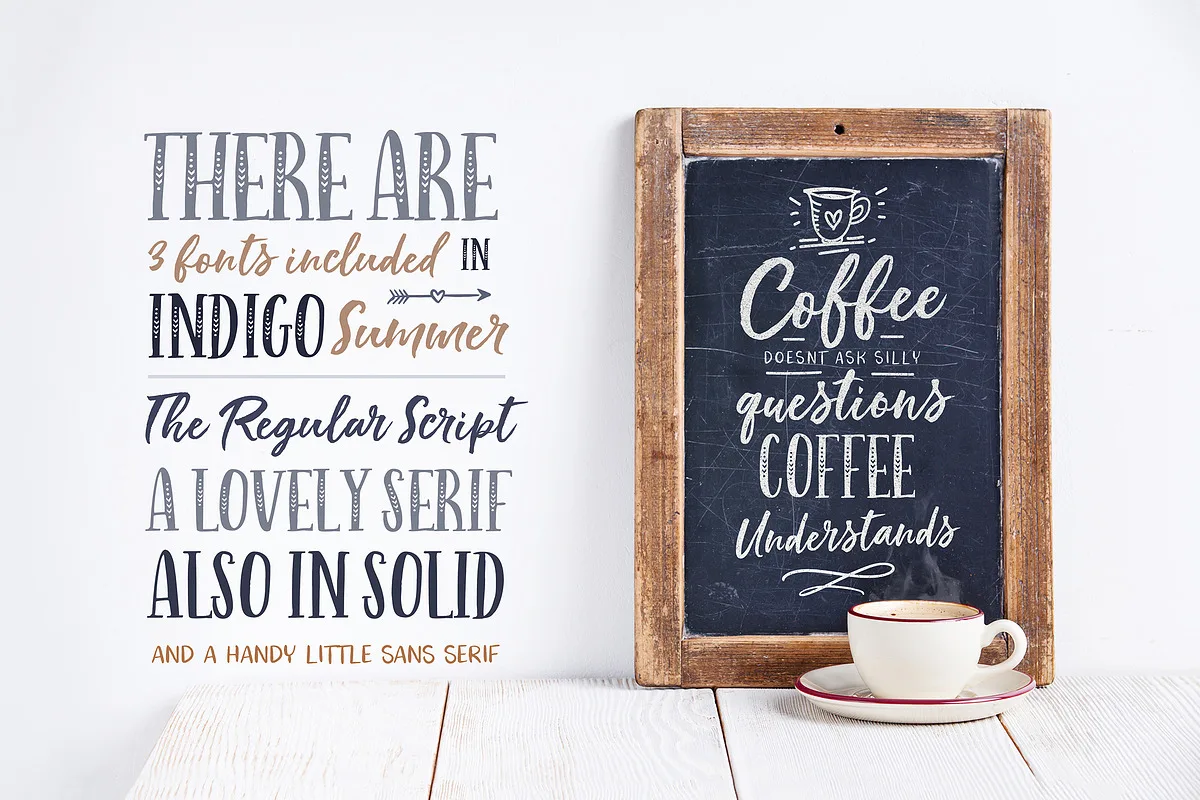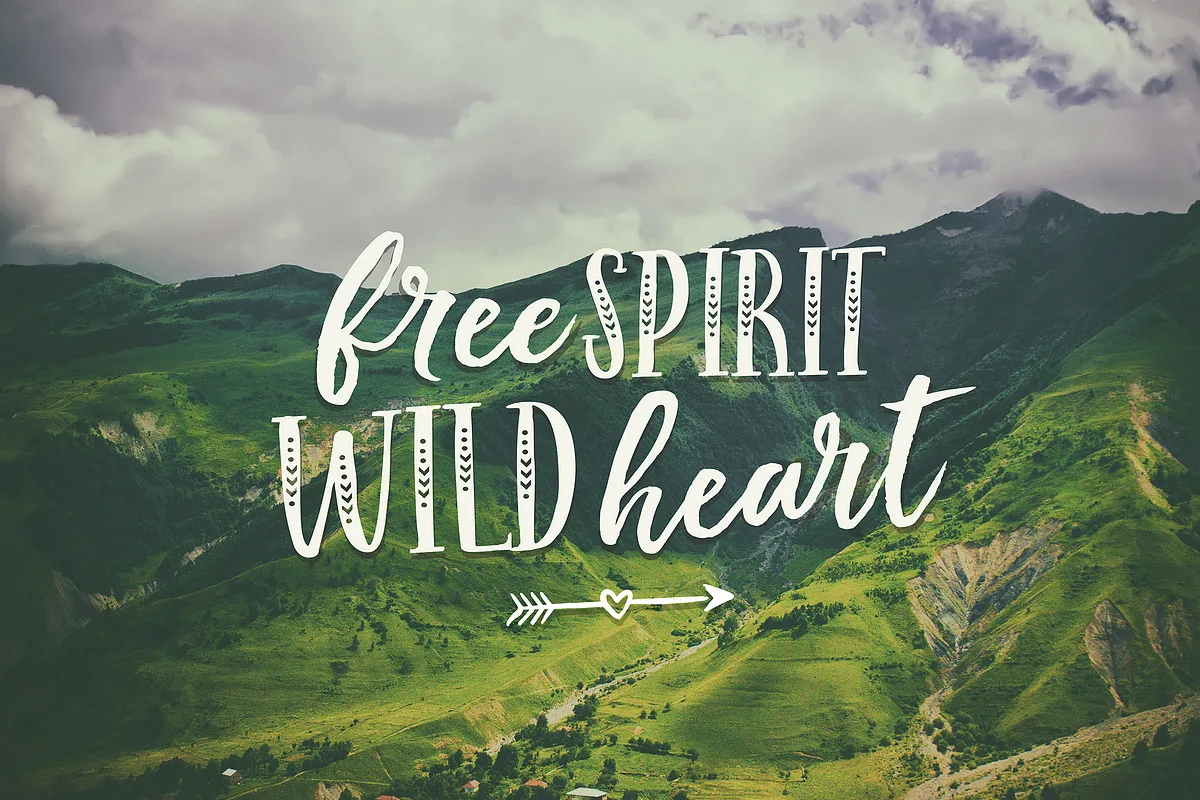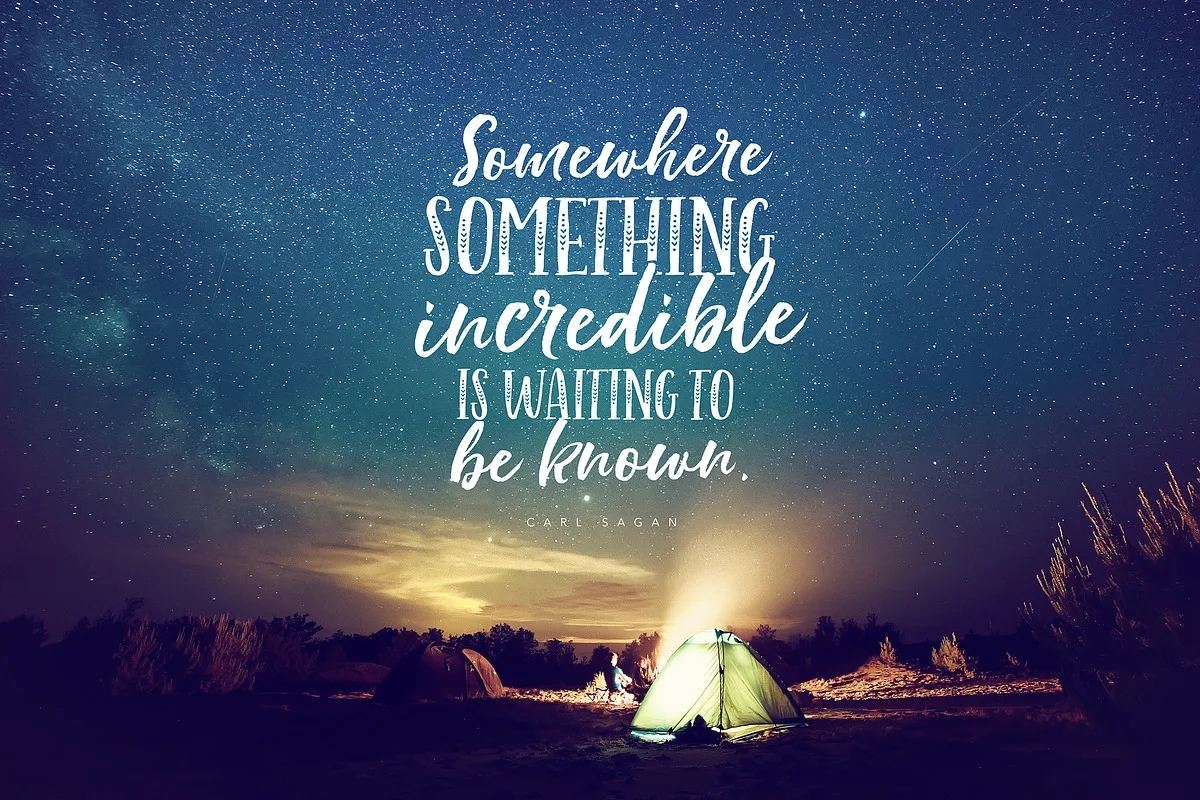
It’s time to take a little time out and get PLAYFUL with a brand new rustic font trio that loves a good adventure!
Introducing the Indigo Summer Font Trio , a happy trio of hand lettered and brushed fonts (with extras), all designed to compliment each other perfectly in typographic designs, yet stand beautifully on their own , each with it’s own unique personality.
END and BEGINNING swashes : From rustic arrows to twirly curls, you can choose between 8 lovely end swash sets to add onto your lowercase start and end letters. If you don’t have Opentype capable software, there is a separate Swashes TTF font for you to use for typing out the swashes.
ALTERNATE letters : The script has a full set of lowercase alternate characters and double letter ligatures to make your design look super natural.
160 FUN ILLUSTRATIONS & Dingbat Fonts that don’t require special software : To add to the adventure and fun you will be having with this pack, I’ve included over 160 hand-drawn vector elements to add a plash of adventure to your designs! They come in various handy formats – even as a handy dingbat font!
Indigo Summer Font Trio